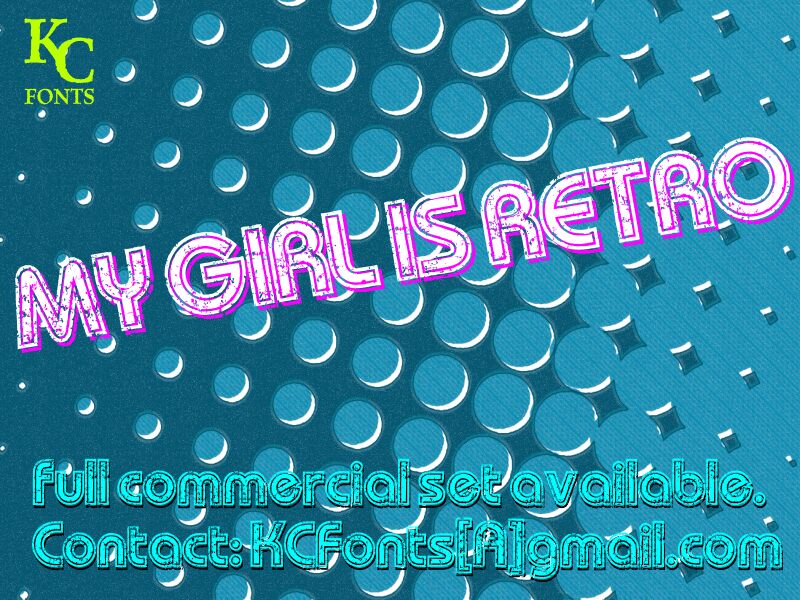
My Girl Is Retro by Kevin Christopher is a free retro outlined display font with broad, rounded caps and a layered construction. Repeated inner contours give the letters sign-painted depth, and rough chips cut through the otherwise smooth curves.
Its unmistakable throwback style suits music posters, record packaging, and vintage-themed event graphics. The scraped texture makes the lettering especially useful for apparel and bar signage, where the worn motif can echo aged ink, weathered paint, or screen-printed artwork.